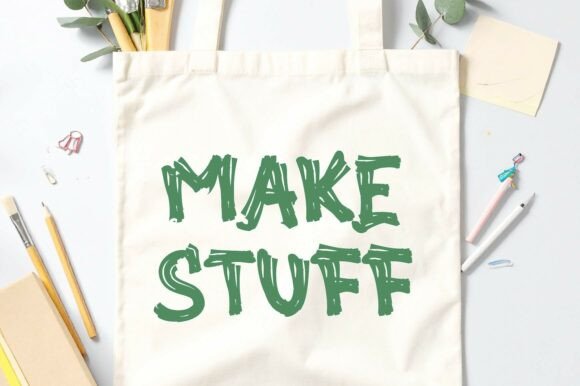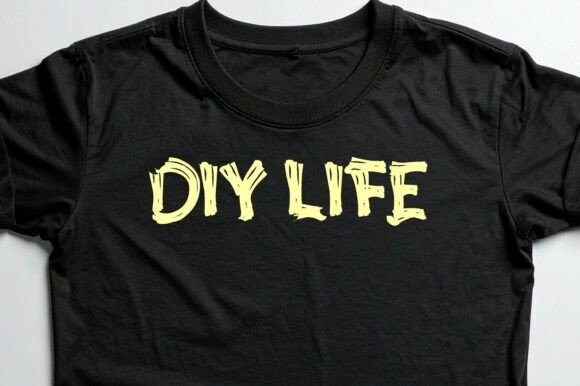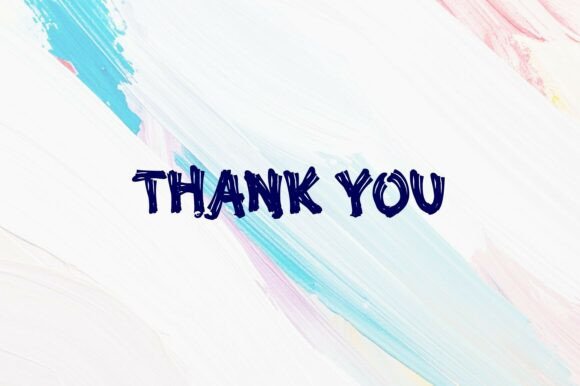
The Unmistakable Charm of Akar Rumput Font
Have you ever been in the middle of a design project, and suddenly, you’re stuck on finding the perfect font? I recall a project where I needed a font that could convey a sense of rebellion and urgency. After hours of searching, I stumbled upon the Akar Rumput font, and it was love at first sight! The distinctive, handwritten display font captured the raw, energetic spirit I was looking for. In this article, we’ll dive into what makes Akar Rumput a standout font, its uses, and some practical tips on how to make the most of it.
A Personal Review: What I Love About Akar Rumput
Akar Rumput is more than just a font; it’s a statement piece. Here are some things I love about it:
• Personality and Impact: Its strong, handmade aesthetic instantly adds personality and a sense of authenticity to any design.
• Expressive Characters: Each letter carries a unique, organic quality, preventing the font from looking sterile or mass-produced.
• 🔥 Versatility for Niche Themes: It excels in projects requiring a grassroots, urban, indie, or DIY feel.
• 💡 Emotional Connection: It’s perfect for conveying messages with a sense of urgency, creativity, or protest.
While Akar Rumput is a fantastic font, it’s not without its quirks:
• 🤔 Limited Formality: It’s not suited for formal contexts, such as business proposals or official documents.
• ⚠️ Legibility at Small Sizes: The font’s textured appearance and irregular lines can make it less legible at very small sizes.
While the origins of Akar Rumput are shrouded in mystery, it’s clear that the designer was inspired by the raw energy of street art and the imperfections of handmade typography. Imagine a designer who spent countless hours exploring the streets of urban cities, capturing the stenciled letters and graffiti tags that seemed to speak to them. This font is a testament to the power of urban art and the beauty of imperfection.
Q: What is Akar Rumput font best used for?
A: Akar Rumput is ideal for projects that require a bold, expressive, and authentic feel, such as indie branding, urban art, and social activism.
Q: Is Akar Rumput suitable for body text?
A: No, Akar Rumput is best used for headlines, titles, and short paragraphs due to its textured appearance and irregular lines, which can make it less legible at small sizes.